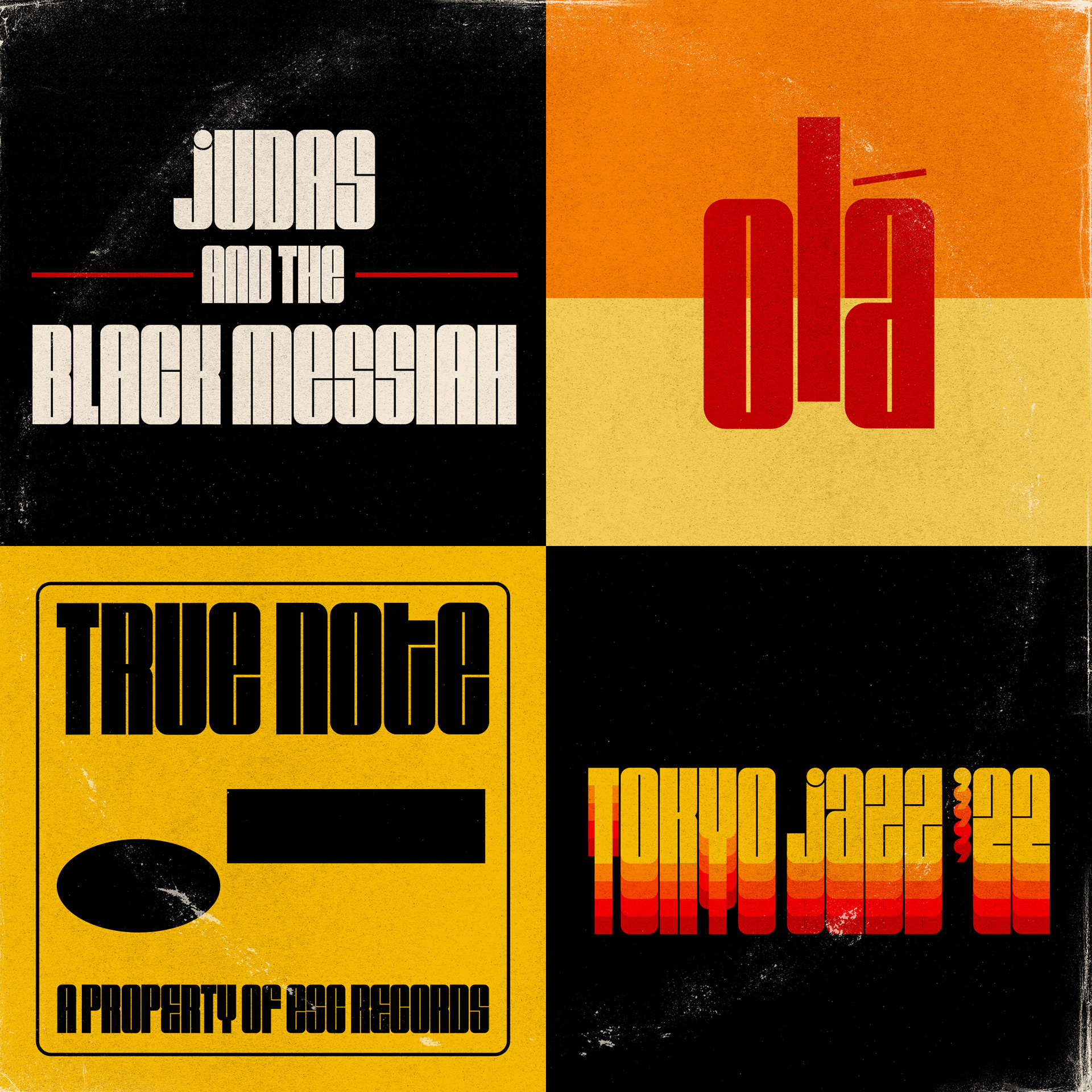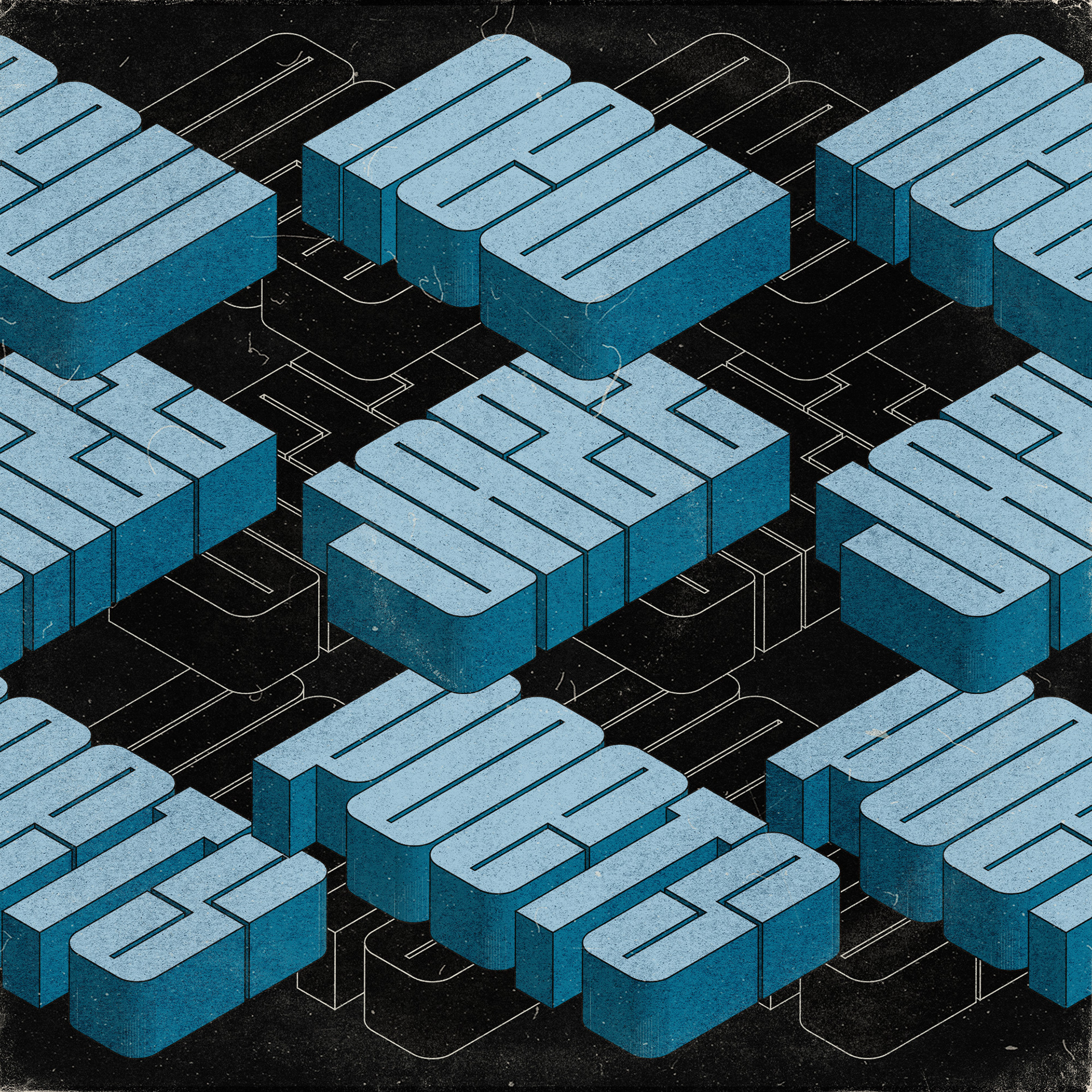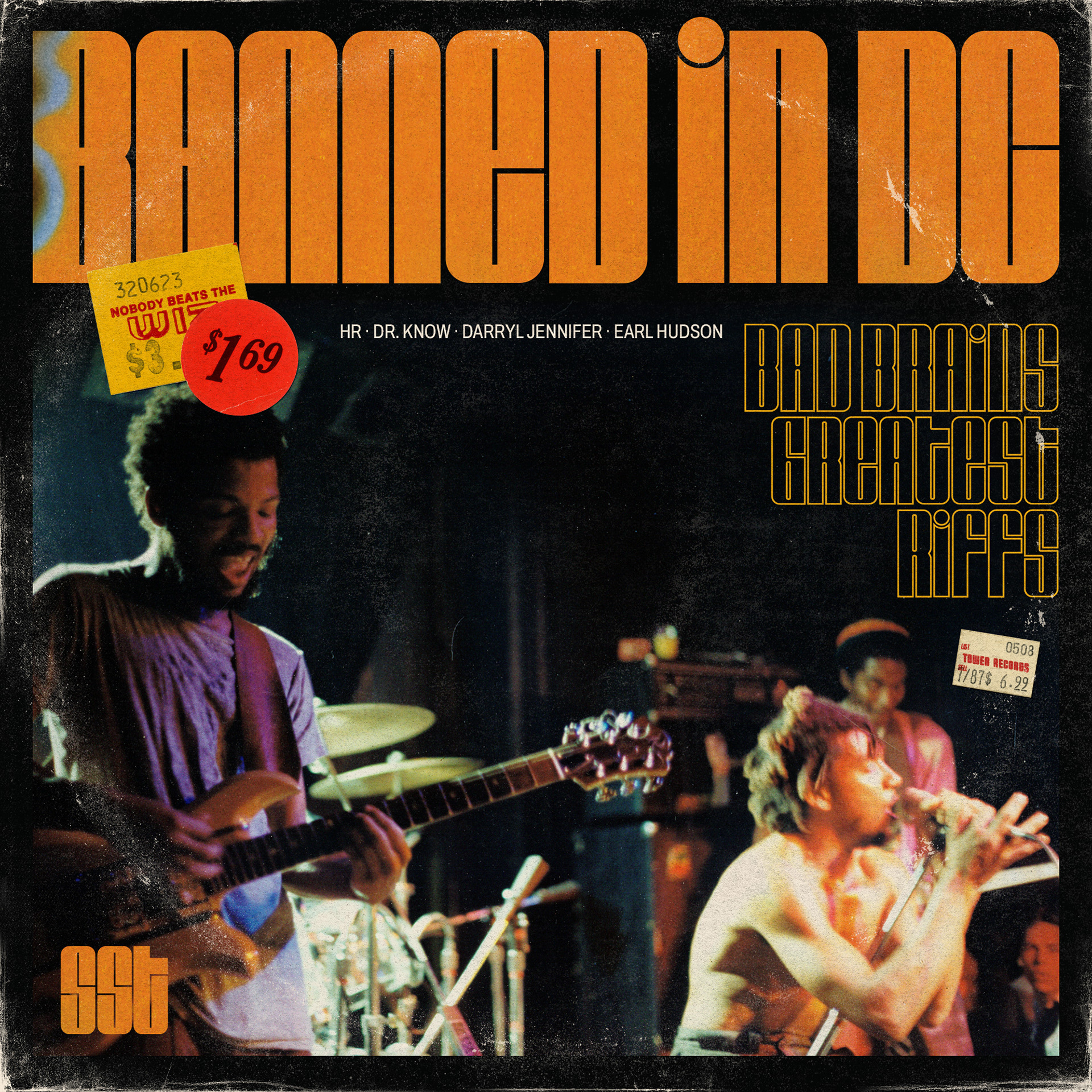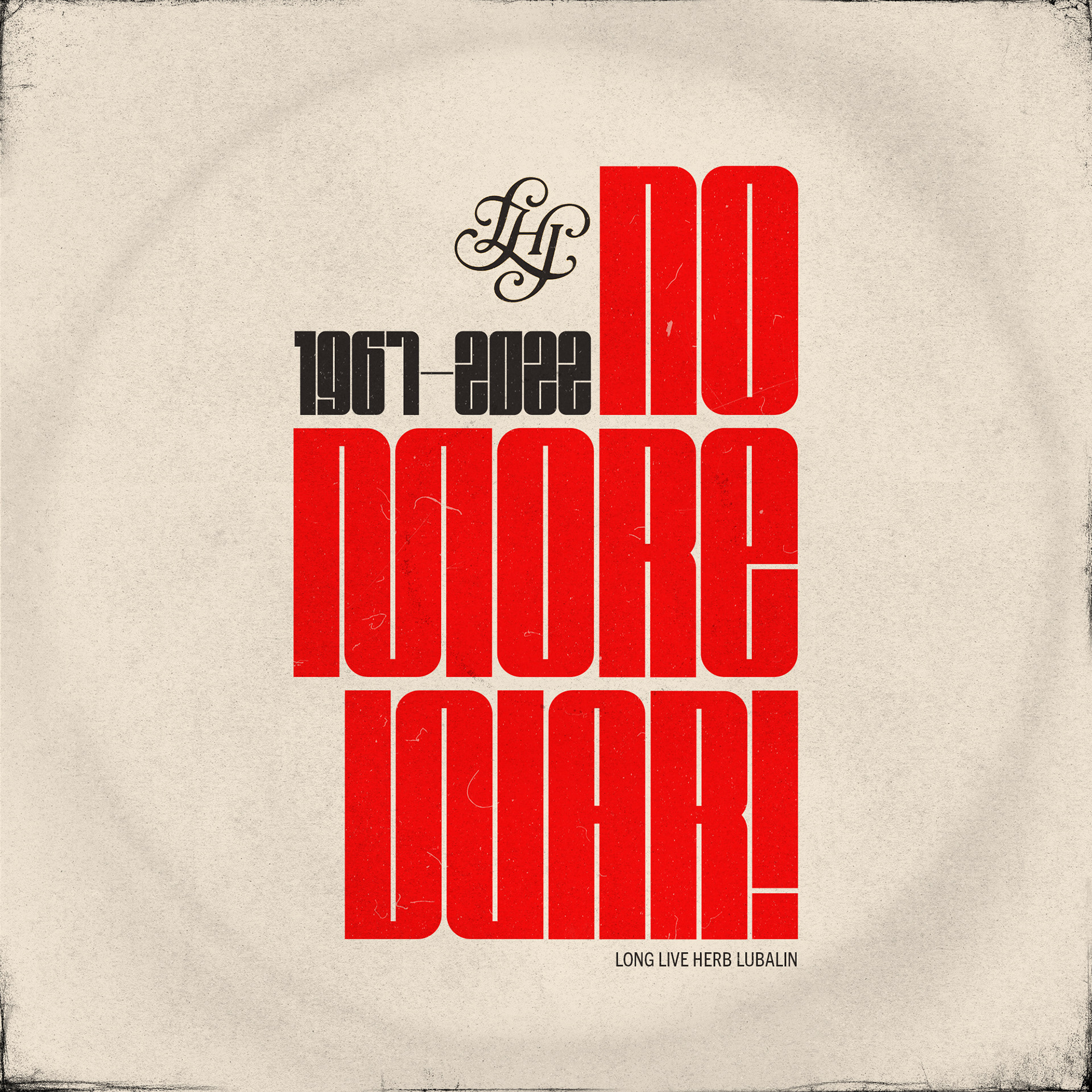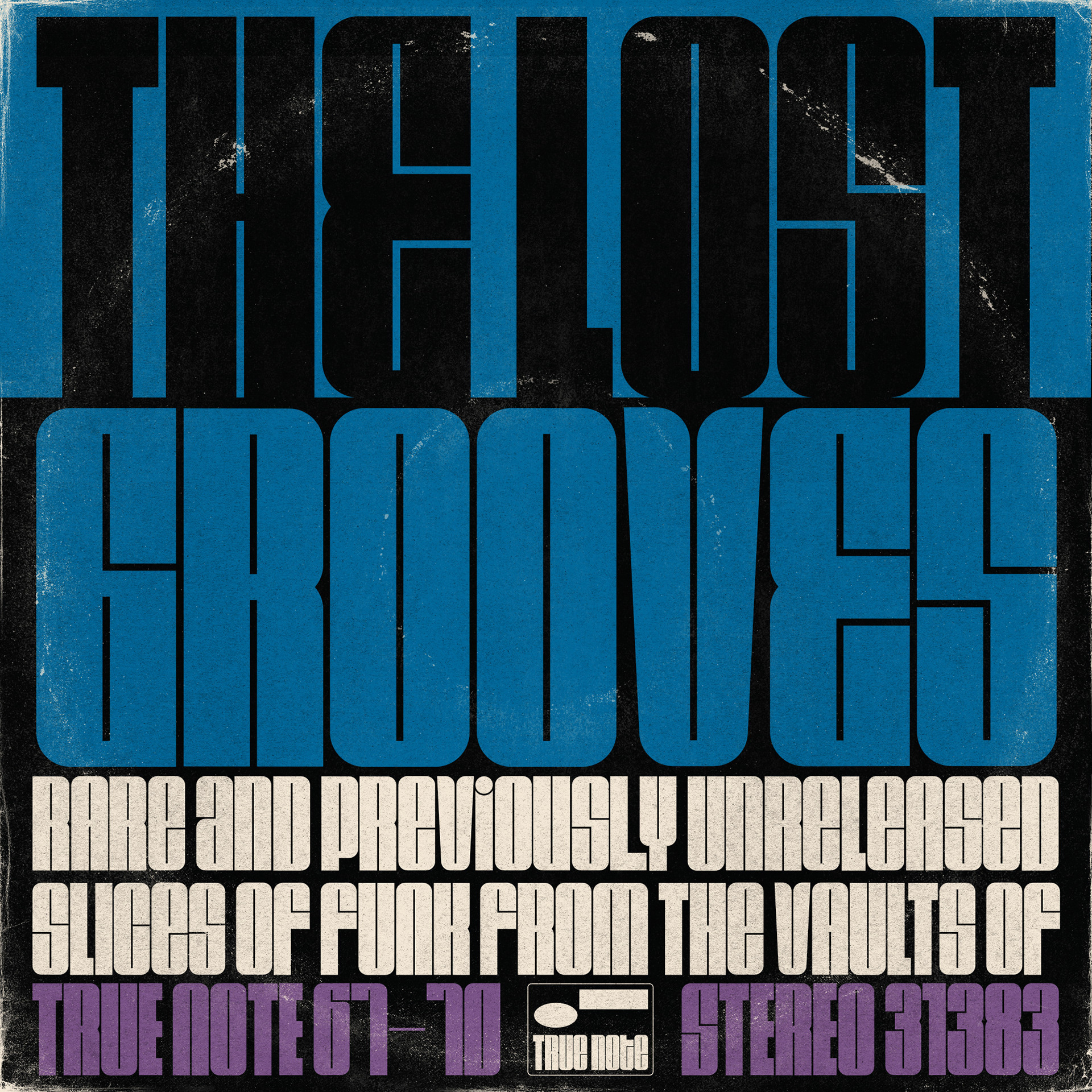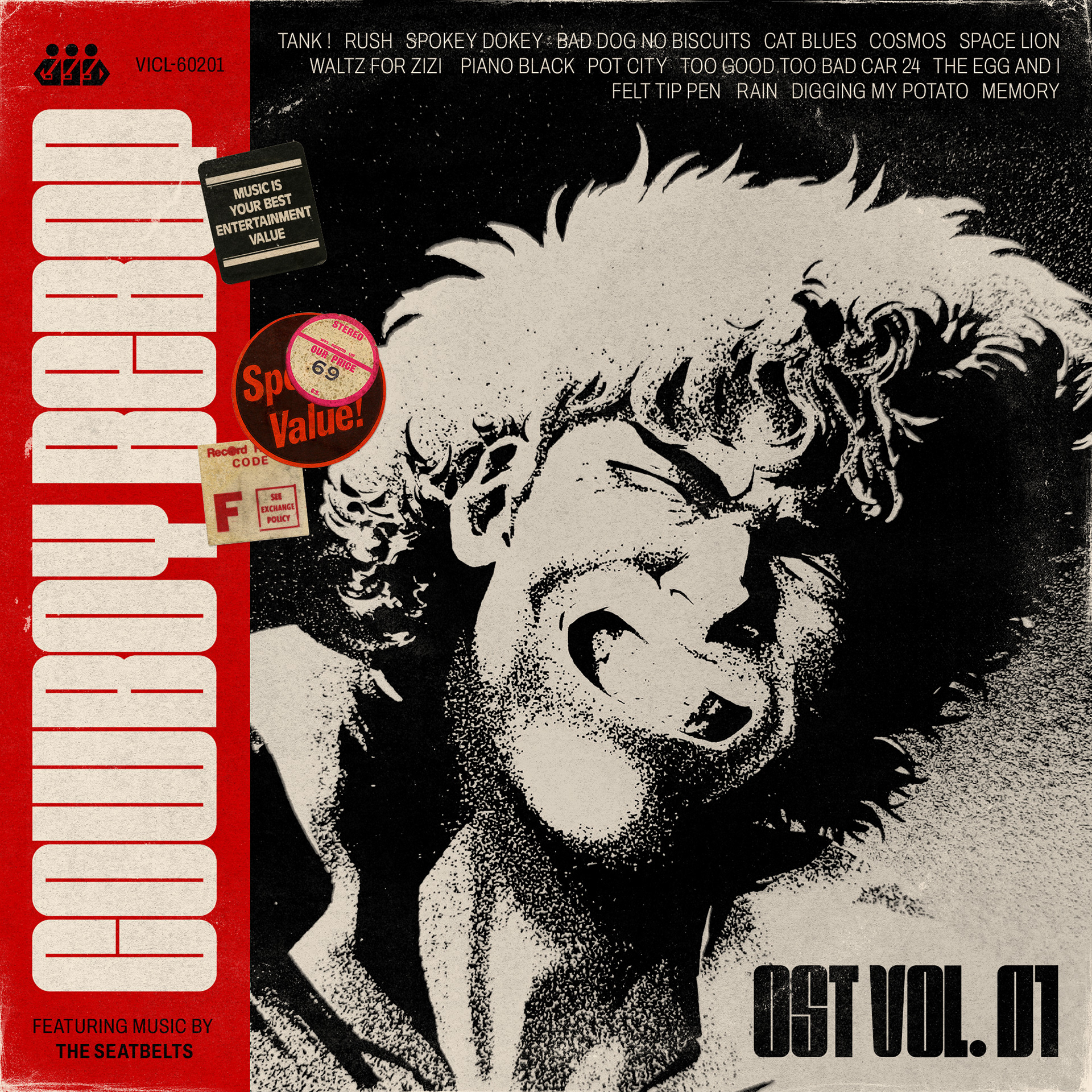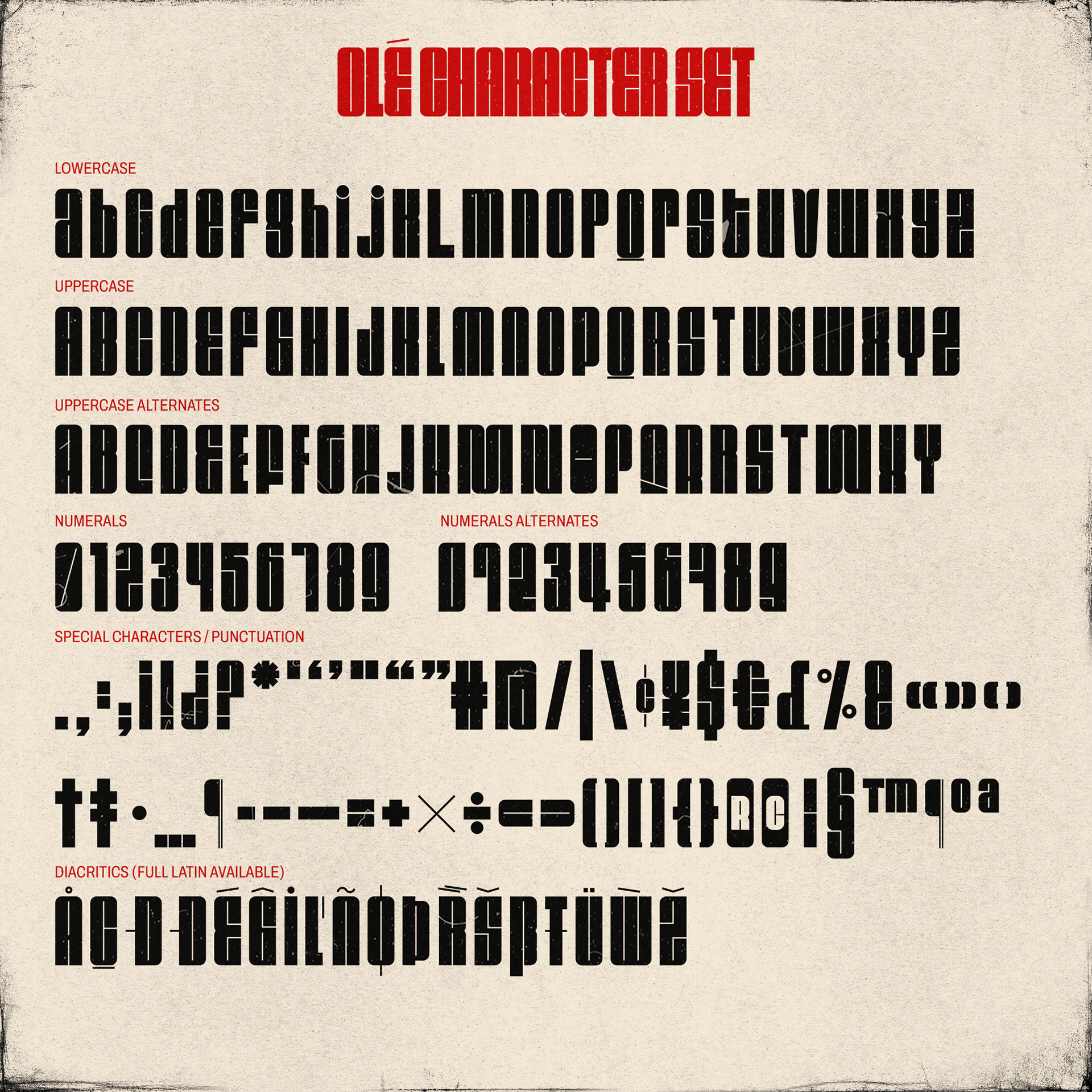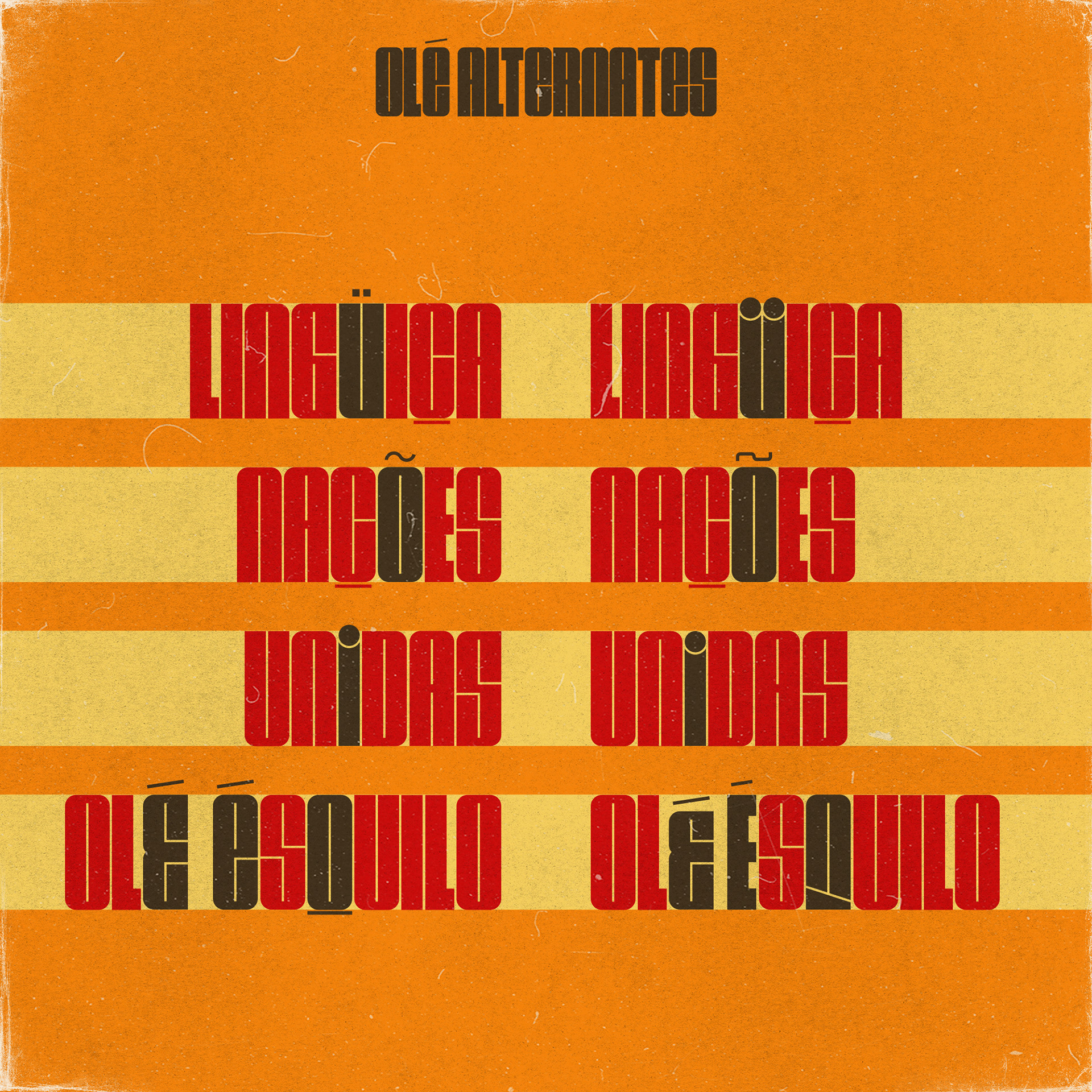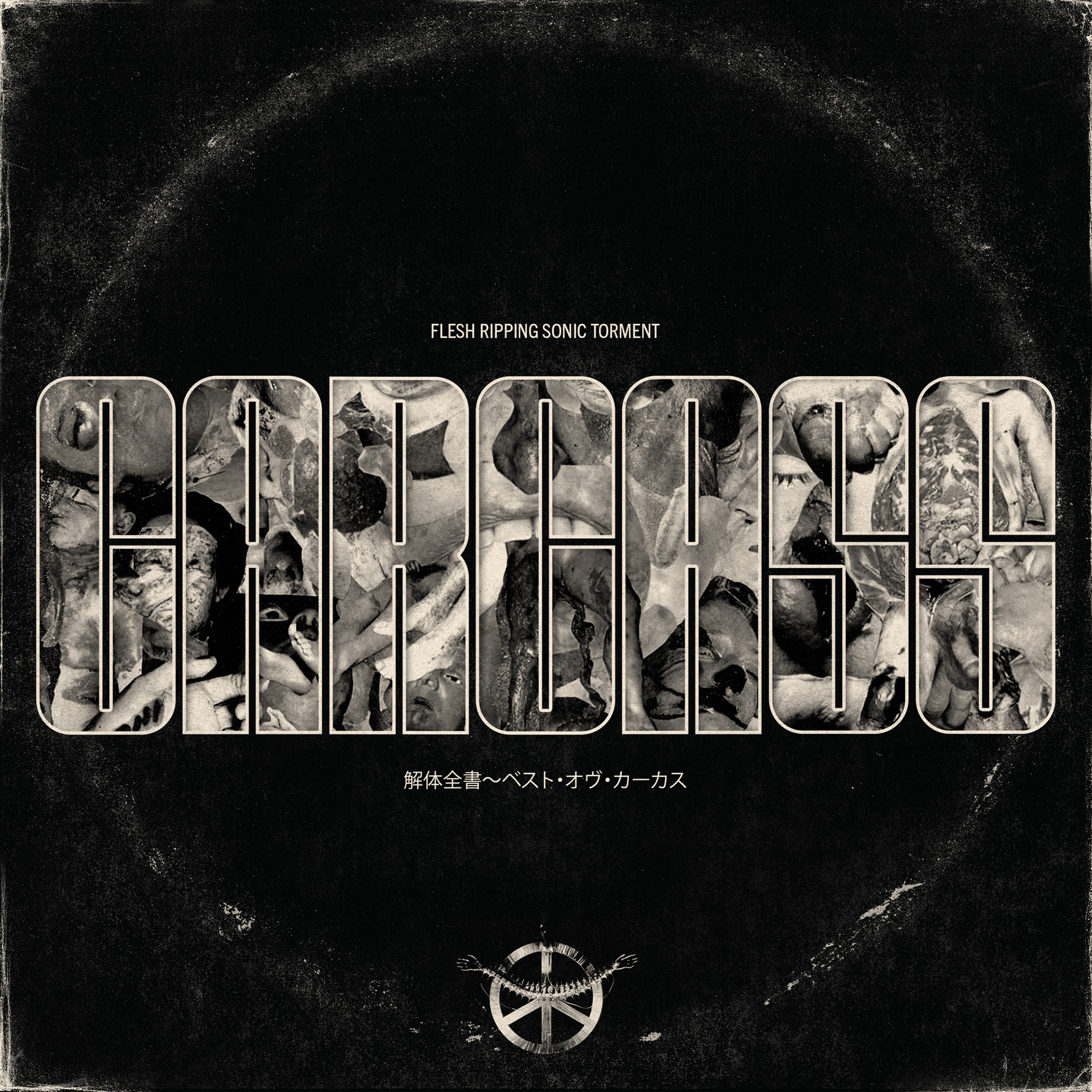
Olé is a font inspired by jazz letterings and album covers (such as Reid Miles' work for Blue Note and others), as well as other 1960s designs such as Deutsch Black (1966) and Pacella Graphic Biform (1965).
It includes several alternate characters and unicase construction for variations and other composition possibilities. Ideal for use on large sizes, titles and logos.